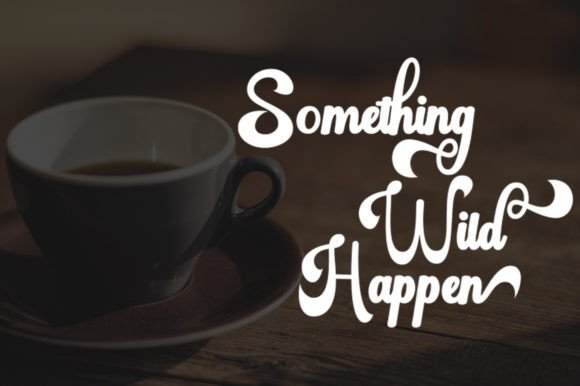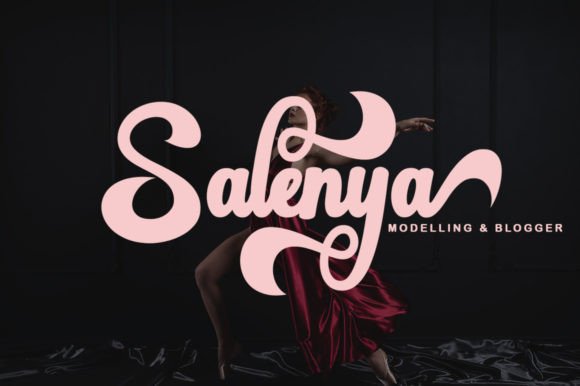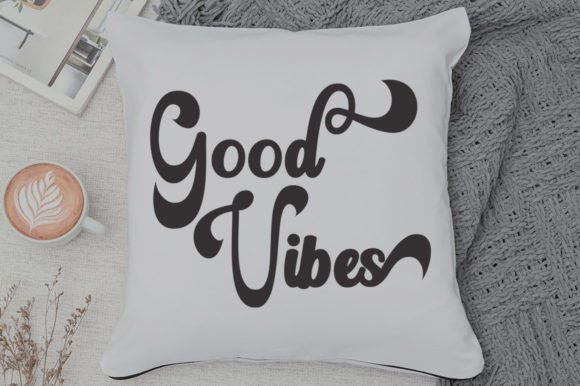
About Bagday Script Font
**Bagday Script: A Retro-Style and Sophisticated Handwritten Font for Confident Messaging**
Bagday Script is a font that blends retro style with sophistication, making it an excellent choice for delivering messages with confidence, authenticity, and charm. Whether you’re working on cards, branding, labels, or any creative project, Bagday Script elevates your designs with a touch of retro elegance.
The charm of Bagday Script lies in its sophisticated handwritten characters, meticulously designed to convey a sense of confidence and authenticity. Every letter exudes a unique charm that enhances your designs with an air of sophistication.
This font’s versatility ensures it can adapt to various design contexts. You can use it to create memorable cards that leave a lasting impression, infuse authenticity into your branding materials, design eye-catching labels, or employ it in any crafting project where you want to convey confidence and charm.
In summary, Bagday Script is more than just a font; it’s a source of retro elegance and sophistication that enhances your design projects. Its handwritten characters make it the perfect choice for creating confident and authentic typography. With Bagday Script, your creative projects will shine with a distinct and charming presence. Choose Bagday Script, and let your designs captivate with their retro-style sophistication.